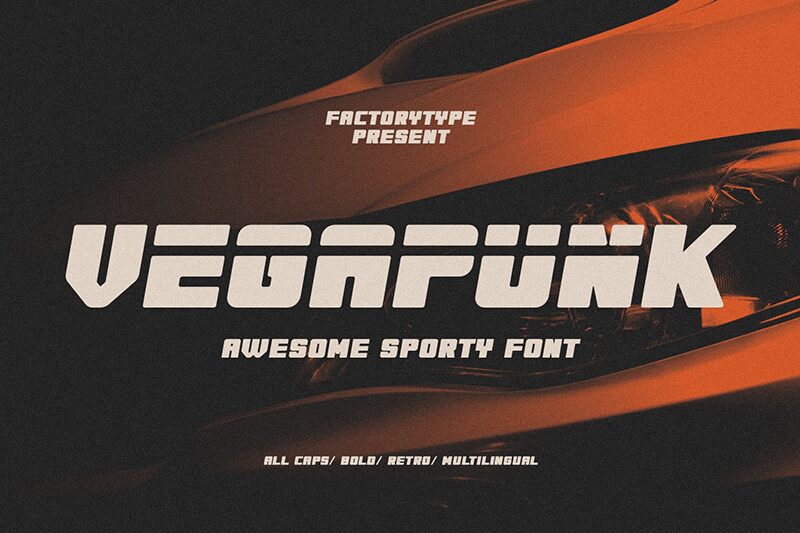
Vegapunk FREE
Download Vegapunk, the extra-bold and semi-expanded display font designed by FactoryType. Its futuristic style and unique cutouts give your designs a powerful and speedy impression.
With its dynamic slant, Vegapunk is perfect for creating racing game graphics, auto sport logos, and vintage titles. Whether you're designing a high-octane website or giving your blocky lettering an authentic racetrack look, Vegapunk delivers. Best of all, this sports font is free to download!
Elevate your design game with Vegapunk and make a bold statement that stands out from the competition.